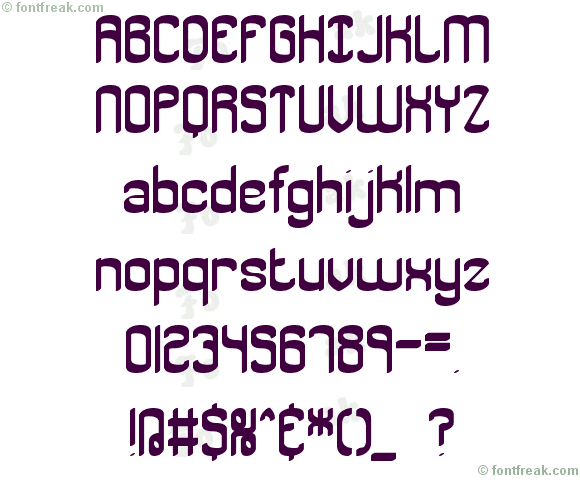
Jargon BRK
About Jargon
Jargon by Ænigma Fonts is a captivating display typeface that embodies a unique character and charm, making it an excellent choice for various design projects. As a freeware font, it offers designers an opportunity to elevate their work without any financial barriers. The Jargon font features a distinct combination of bold strokes and playful curves, which gives it a lively yet sophisticated appearance. Its moderate contrast in stroke weight adds visual interest while maintaining legibility, making it suitable for both large and small text applications. The spacing is thoughtfully balanced, allowing for comfortable readability in diverse contexts.
This font is particularly well-suited for creative endeavors such as movie posters, where its striking design can capture audience attention. It also shines in branding materials for small businesses, lending a contemporary flair to logos and promotional items. Jargon is an ideal choice for restaurant menus, where its unique aesthetic can enhance the dining experience by adding a touch of style. Additionally, this font works wonderfully for social media graphics, helping content creators convey their messages with a distinctive visual identity.
Targeting graphic designers, small business owners, and content creators, Jargon is versatile enough to cater to various projects while appealing to a wide audience. Its playful elegance and distinctive features allow users to express their creativity in a memorable way.
What sets the Jargon font apart is its ability to blend functionality with artistic flair. This font stands out not only for its eye-catching design but also for its adaptability across different mediums. Whether you're designing a wedding invitation or a digital advertisement, the Jargon font free download provides a valuable resource that enhances any project with its unique personality.